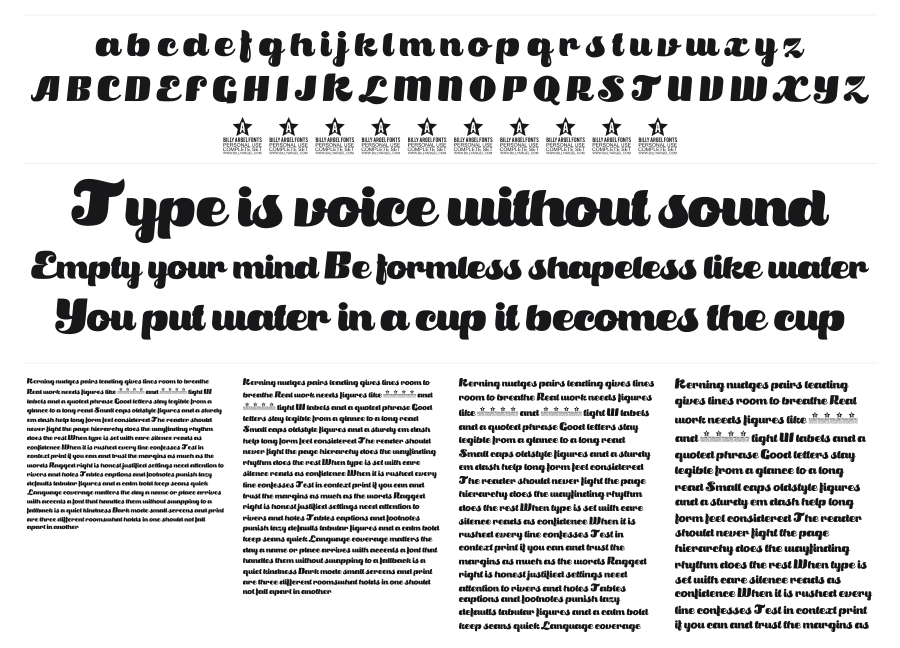
Satisfaction
Satisfaction is a heavy, groovy display face from Billy Argel with thick, flowing letterforms that feel rooted in 1970s sign painting and vintage advertising. The bold strokes carry a retro swagger, with just enough decorative flair to keep things interesting without overwhelming the text. Built for headlines, posters, and branding where you want that warm, analog vintage presence at large sizes.